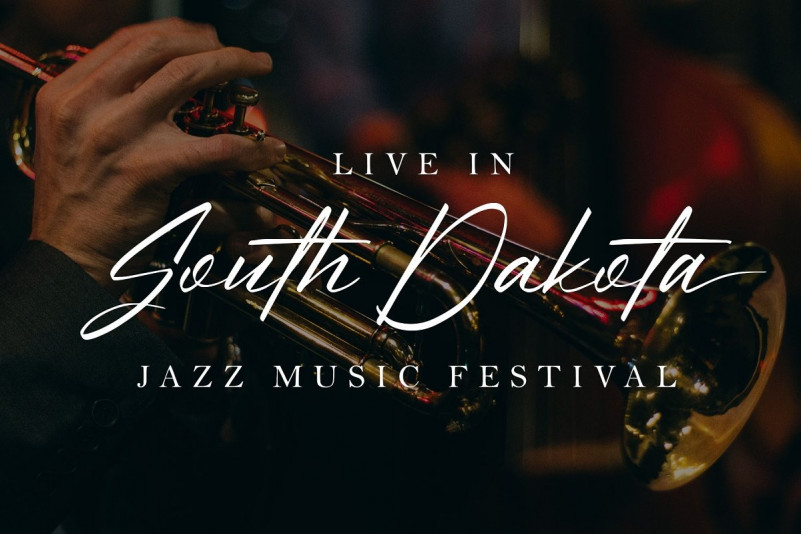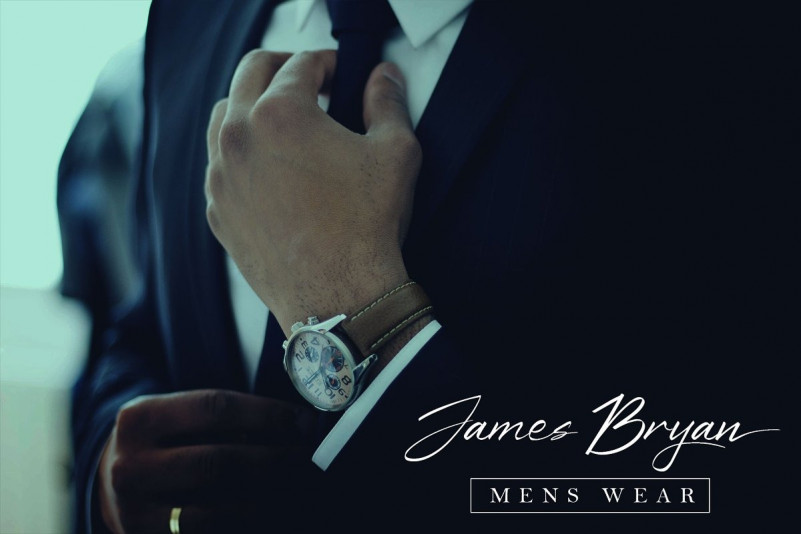
The Bad Weather Script Font
– Introducing –
The Bad Weather
Signature handwritten style typeface. Demo Version, please visit http://www.knackpack.studio for the Full / Commercial License.
| Designer Name: | Knackpack Studio |